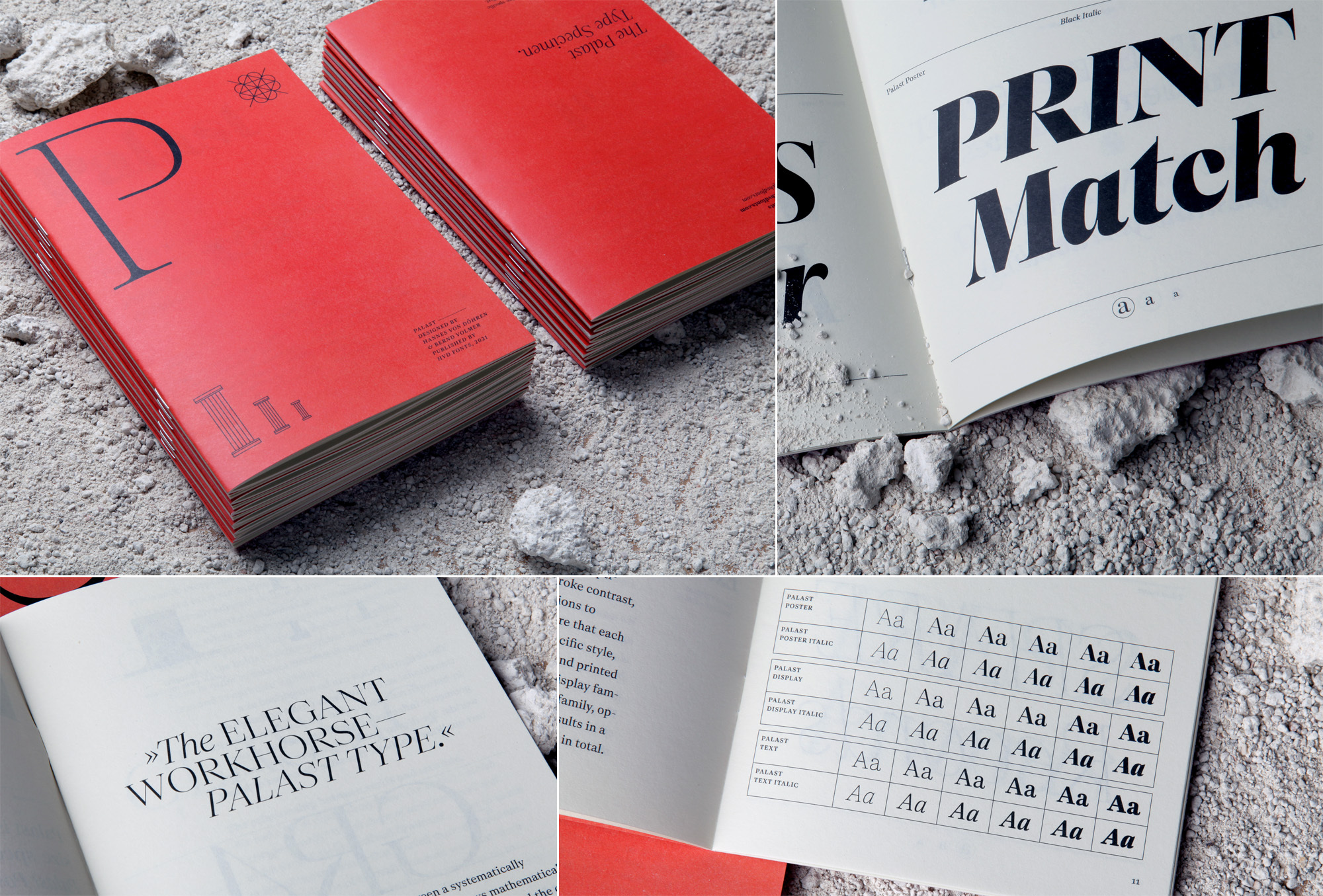
Palast Display
Palast Display DS
Explore the Palast type family — A versatile Serif type family with optical sizes.
Palast is a type system of three size-specific optical sub-families: Palast Poster, Palast Display & Palast Text. Palast Poster is intended for use in extra large sizes, at which the extreme contrast between thick and thin strokes looks spot on. Palast Display is designed for headlines, medium sizes and short text. Palast Text has the lowest contrast of the three optical sizes, making it perfect for long texts in small sizes. The Palast type system comes in one variable font family that includes all optical sizes, bringing total flexibility to the user.
Palast Display
Palast’s precision and its optical adjustments
Palast bridges the gap between a systematically constructed serif typeface that follows mathematically precise stems and curves on the one hand and the optical corrections required to achieve a balanced typeface on the other. We established design rules early on that would guide us through the design process. Before we could explore rhythm and dimentions with control characters »H« and »O«, we defined the default serifs.
The design of Palast can be categorized as a transitional serif – similar to Caslon or Baskerville – in-between renaissance and neoclassic designs with geometric influences. It combines the best of two worlds: The display quality of modern types and the text qualities of oldstyle faces like Garamond or Jenson.
Right from the start we systematically defined standard stem weights for vertical and horizontal stems in round segments, in straight segments and for the serifs. Legibility (the recognizability of letters) and readability (the equilibrium of shapes in text) were always a number one priority, so we had to establish systematic exceptions to these rules in the process. We wanted to create an elegant typeface with contrast, so we optically adjusted serifs and horizontal stems in order to avoid the stiff look of low-contrast slab serif typefaces. While the thin weights followed rather clear design principles and therefore needed less optical adjusting, the bolder weights required more corrections in order to balance the overall appearance of the text and to optimize legibility.
The relationship between serifs and attitude.
We had a lot of discussions about the serifs — which letters need serifs? Which shape of serifs work well and which do not? Do we need ball terminals? — Just to name a few of the questions that started these discussions. Our conclusion of these discussions was that more serifs and carefully drawn details are helping to achieve a classy look in big sizes. During this phase we searched for details that add character — this extra spin and elegant appearance — and kept in mind that the design decisions should never interfere with functionality and legibility. Letters like »C«, »G« or »S« have seriffed endings which can also be found in fonts like Caslon or other neoclassic high-contrast typefaces like Bodoni or Didot.
Some of the surprising, unseen shapes we came up with in the design process can be found in the top of the »t« or the top serifs in »l«, which is also present in »b« »d« »h« and »k«. We came up with different designs for several letters and discussed which letters need serifs and which could benefit from looking simpler without serifs.
Throughout the design process we tried a variety of different solutions for the serifs on letters like »c« for example. Changing the top serif in »c« to a ball or a half drop had a huge impact on the overall appearance of Palast. And of course changing the »c« to a half drop terminal also impacted other letter like the lowercase »a« for example.
1 — Contrast
The contrast between thick and thin bits is very high in Palast Poster, which results in an elegant, exclusive appearance.
Thanks to the influence of calligraphy, italics can have a lot of different personalities.
Drawing italics for a serif face starts with the question: Do we want the italics to blend in with the text or stand out? Historical models often went for drastically narrower proportions and different curve tension to emphasize the difference between roman and italic. These italics felt rather aggressive to us and that is why we took a different route with the italics.
We wanted an italic with a warm feel and a contemporary look that is different enough for emphasizing text, but goes along well with the roman. The italic shows clear influences from handwriting and adds a human touch to the Palast family.
The result is a very crisp, timeless and classy italic. The proportions are slightly narrower than the proportions of the roman and it adds another nuanced voice to the Palast family.
Optical sizes for each design purpose.
A high contrast font is normally designed for use at large sizes. When using a high contrast typeface in small sizes the thin parts and the fine details are getting too thin to be rendered or printed and the result would be a terrible reading experience. We did not want to compromise on the high contrast of the Poster styles, so we designed a version optimized for small sizes. We changed the stroke contrast, worked on the details and on the proportions to